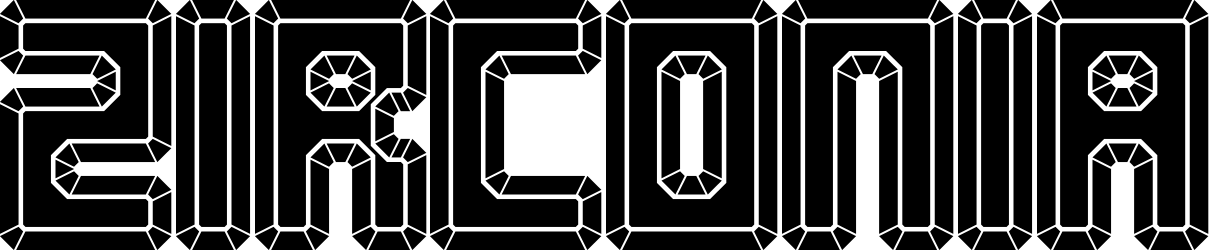
Zirconia Font
Designed byChequered Ink
You should use a suitable, ideal, and relevant font to design the logo or website of luxury sites such as gold shops. Zirconia is a diamond font that creates a different feeling for the audience. By using Zirconia you can attract the attention of the audience. This font conveys a sense of luxury and style to the audience and greatly impresses them.